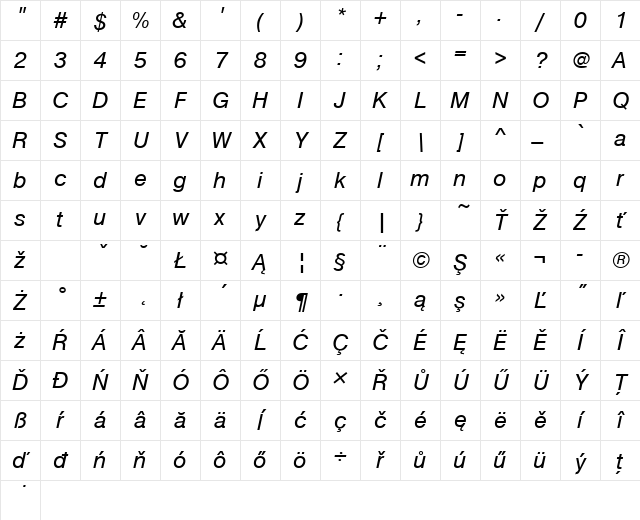
NimbusSanDEE Italic
Design Context for NimbusSanDEE
NimbusSanDEE is a composed and adaptable typeface that performs quietly and consistently across a wide range of design contexts. The slanted form adds forward momentum and visual energy.
Pro Tip: Use NimbusSanDEE for emphasis, pull quotes, and subheadings where its slanted energy can add rhythm to the layout.